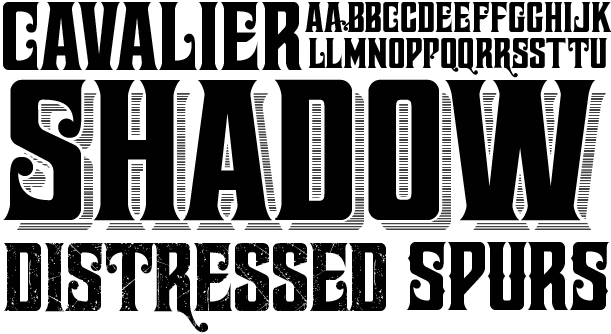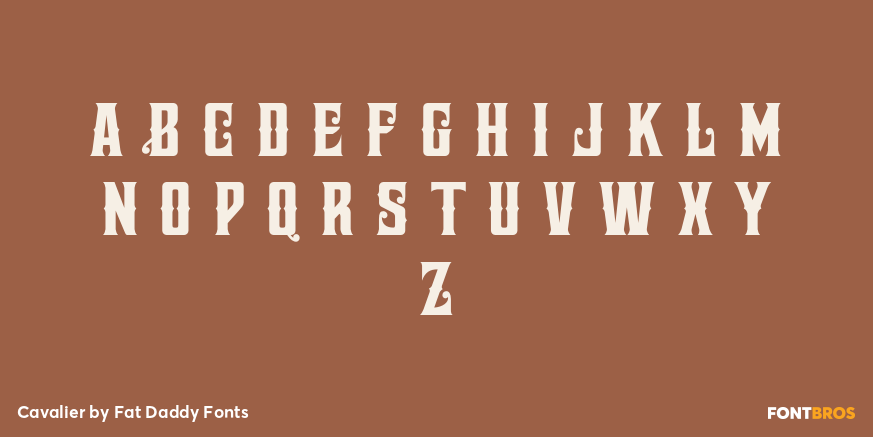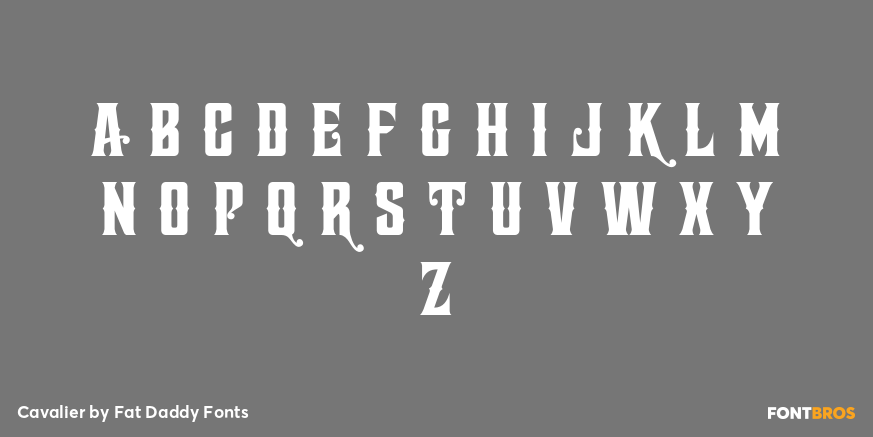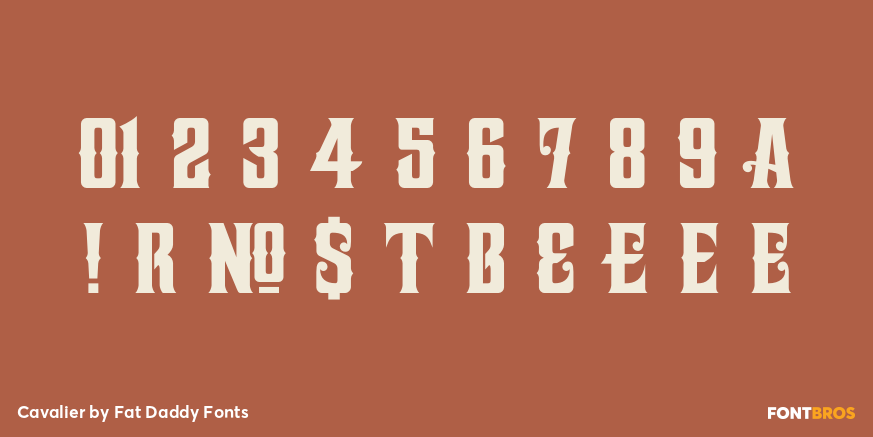
Cavalier
Font Family by Fat Daddy Fonts
Inspired by old stock certificates, FDF Cavalier is a bold font that draws attention. Font set includes 4 versions.
Cavalier Regular
Cavalier Spurs
Cavalier Shadow
Cavalier Distressed